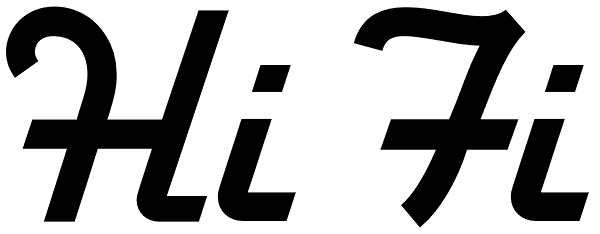
HiFi
HiFi is a semi-connected geometric script with ornate capitals whose genesis lies in drive-in movie theaters, vintage auto emblems and radio dials. It embraces the stylistic tenets of retro futurism and proposes that the evolution of design styles...